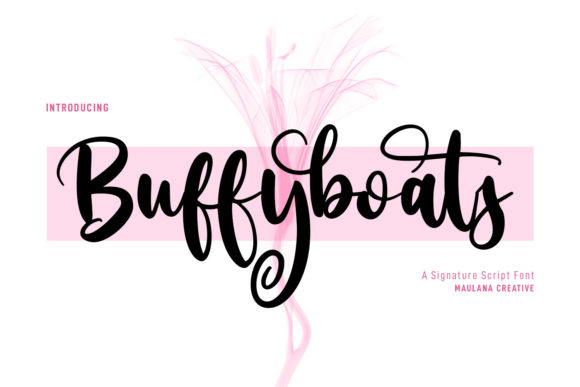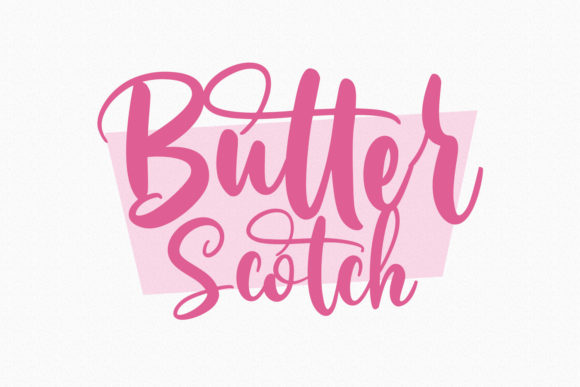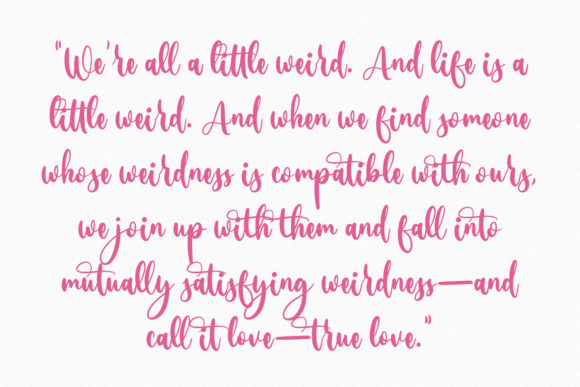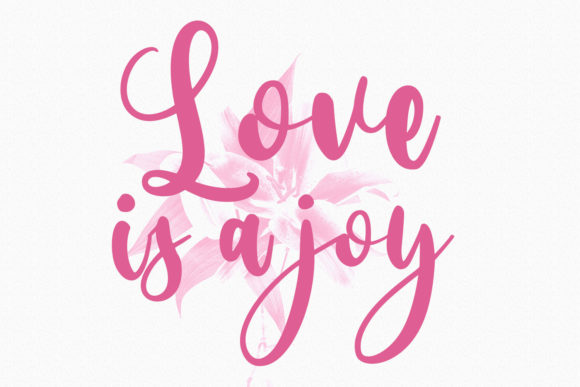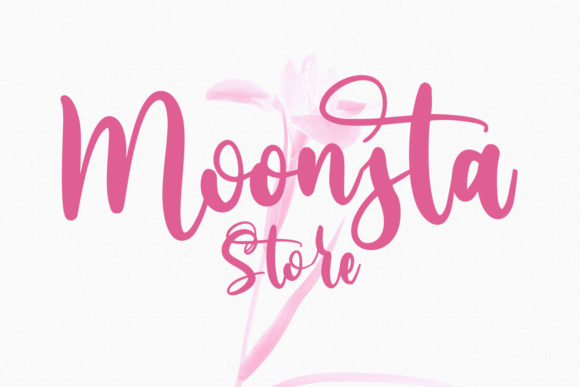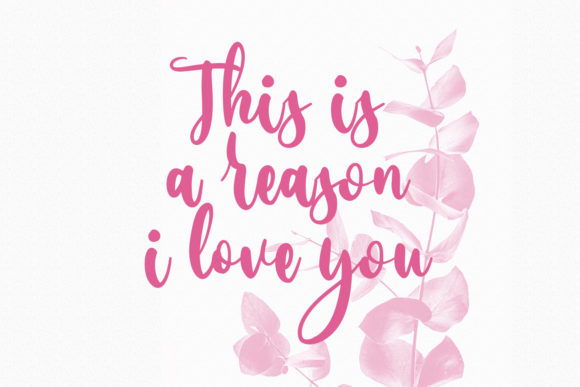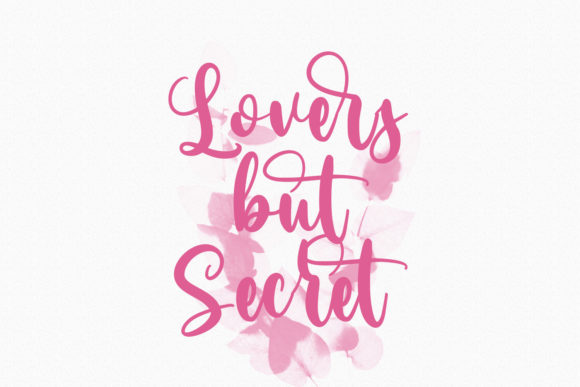
About Buffyboats Font
“Buffyboats is not just a font; itβs a work of art. This fancy handwritten font is a testament to the beauty of typography. With its bold contrast strokes and fun characters, Buffyboats is designed to make your work stand out. Itβs more than just a typeface; itβs a tool for creating stunning visuals that captivate and inspire.
One of the standout features of Buffyboats is its versatility. It is perfect for any branding project, from logos to t-shirt printing, creative products, and more. Whether youβre a professional designer working on a major branding project or a hobbyist creating personalized items, Buffyboats is the font for you.
But Buffyboats is not just versatile; itβs also fashionable. With its modern and stylish design, Buffyboats is a font that stays ahead of the trends. Itβs a font that makes a statement, a font that stands out. Whether youβre creating a logo for a cutting-edge fashion brand or designing a poster for a trendy event, Buffyboats is the font that will help you make a statement.
Moreover, Buffyboats is designed to look extraordinary in a variety of contexts. Whether itβs on a business card, a website, a billboard, or a t-shirt, Buffyboats shines. Its unique style and character make it a versatile and adaptable font that can elevate any design.
But the beauty of Buffyboats goes beyond its design. Itβs also a font thatβs easy to use. With its clear and legible characters, Buffyboats is a font thatβs easy to read and understand. This makes it a great choice for designs that need to communicate clearly and effectively.
In conclusion, Buffyboats is a superb handwritten font thatβs perfect for any project. With its unique style and versatility, itβs a font that can make any design stand out. Whether youβre a professional designer or a hobbyist, Buffyboats is a font thatβs worth checking out.”